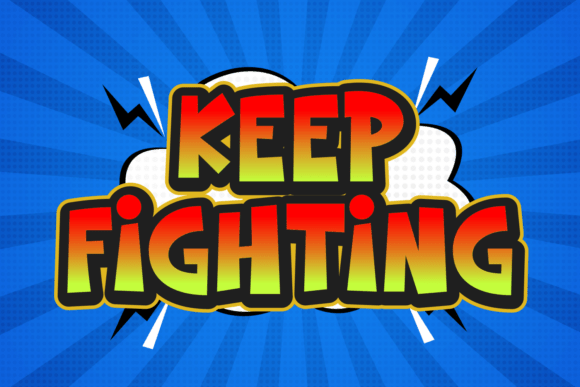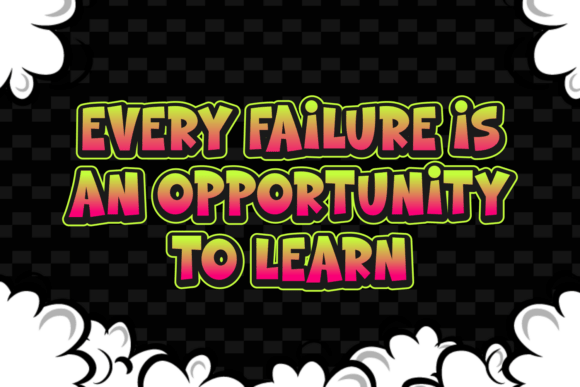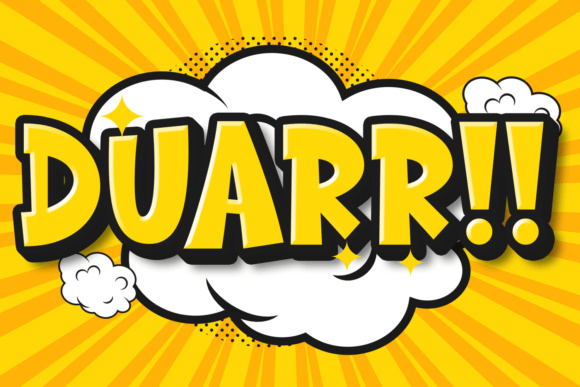
Bolder Strong Font
Bolder Strong is a fun and energetic display font inspired by comic book lettering. With its thick, playful letterforms and dynamic presence, this font is perfect for cartoons, gaming designs, kids’ projects, posters, and eye-catching headlines. The bold, outlined style adds a punch of excitement, making it a must-have for any design that needs a heroic and adventurous feel.